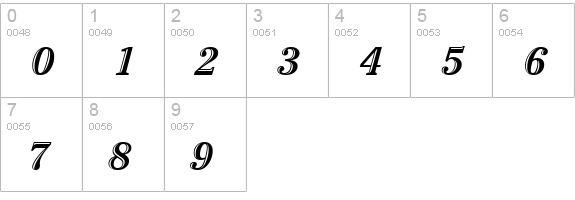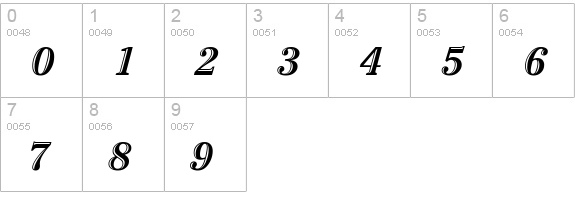
Cheltenham Hand ICG Italic Font Details
Cheltenham Hand ICG Italic is a distinctive, italic variant in the Cheltenham typeface family \xE2\x80\x94 well suited to design and typography projects.
Cheltenham Hand ICG Italic font exudes elegance and sophistication with its unique handwritten style. The italicized design adds a touch of flair to any project, making it perfect for adding a personal touch to invitations, cards, and more. This font effortlessly combines classic charm with modern appeal, making it versatile for a wide range of design applications. Best of all, Cheltenham Hand ICG Italic font is available for free download at FontsMarket.com. Whether you're a designer looking to enhance your creations or simply someone who appreciates beautiful typography, this font is a must-have addition to your collection. Embrace the beauty of Cheltenham Hand ICG Italic font and elevate your designs with its timeless charm.